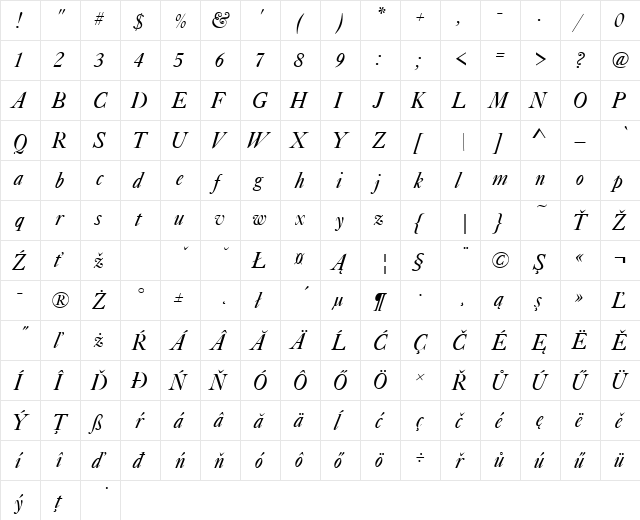
CaslonNo540D Italic
Design Context for CaslonNo540D Typeface
CaslonNo540D offers clean, dependable letterforms without strong stylistic allegiance, making it a practical choice for designers who need flexibility. The slanted form adds forward momentum and visual energy.
Pro Tip: Try CaslonNo540D for annotation and caption copy alongside an upright companion — the contrast in angle creates a dynamic but ordered typographic system.